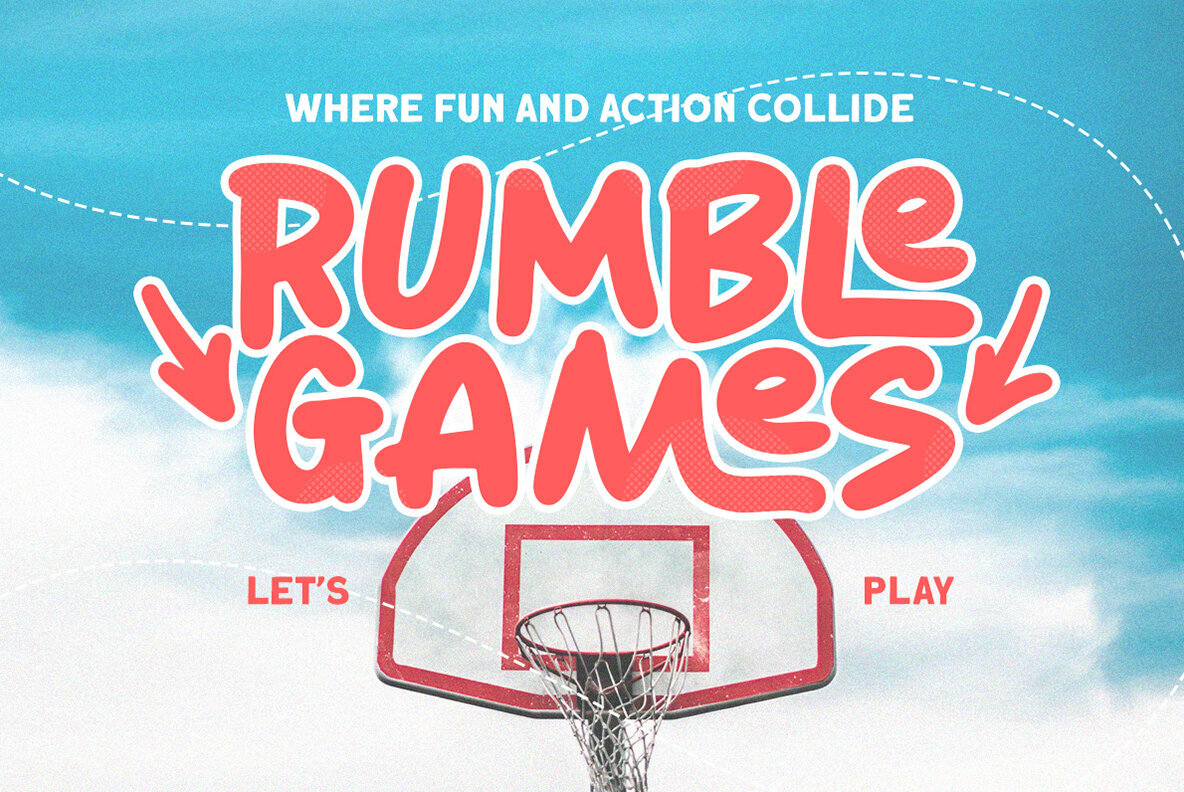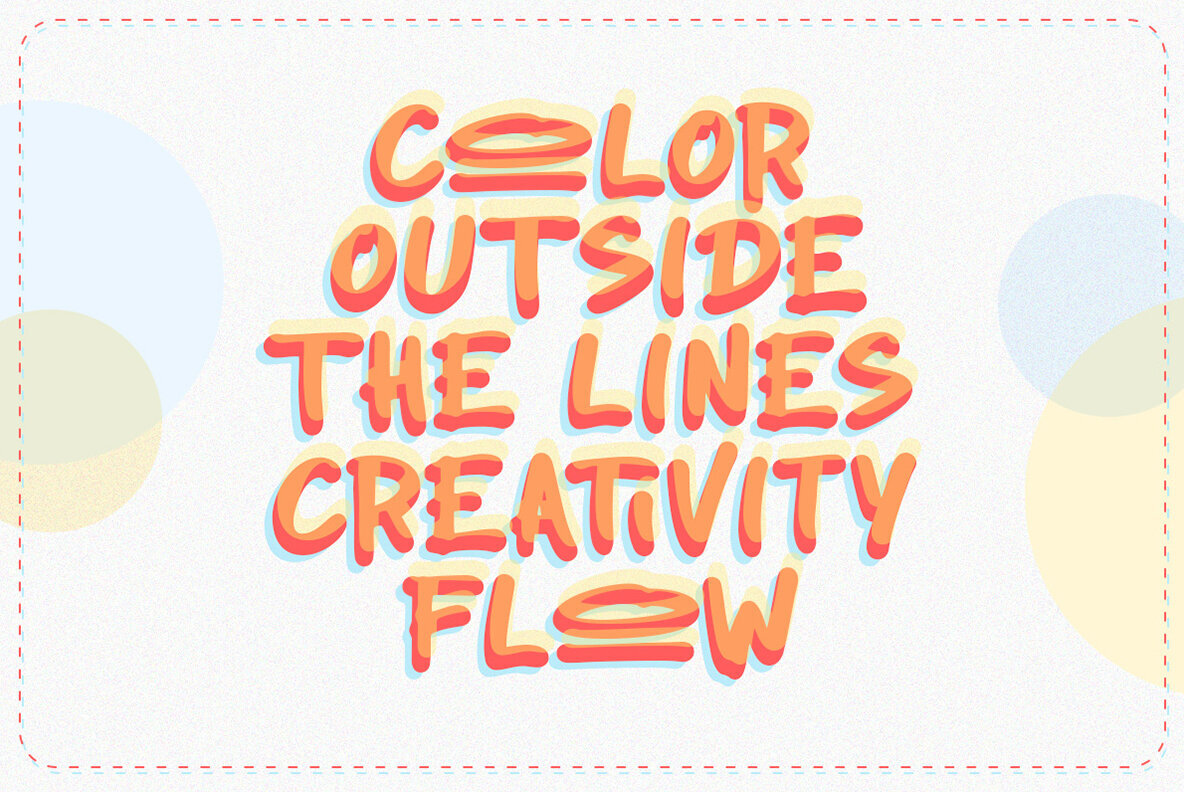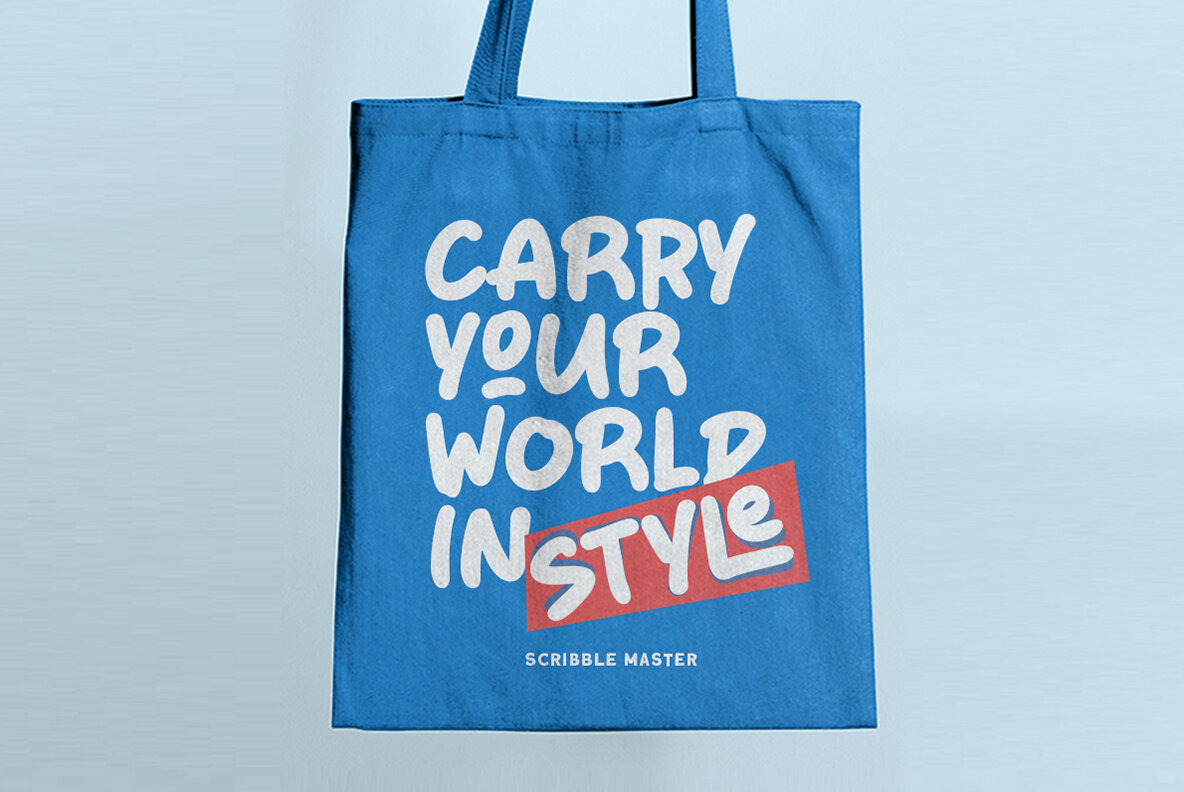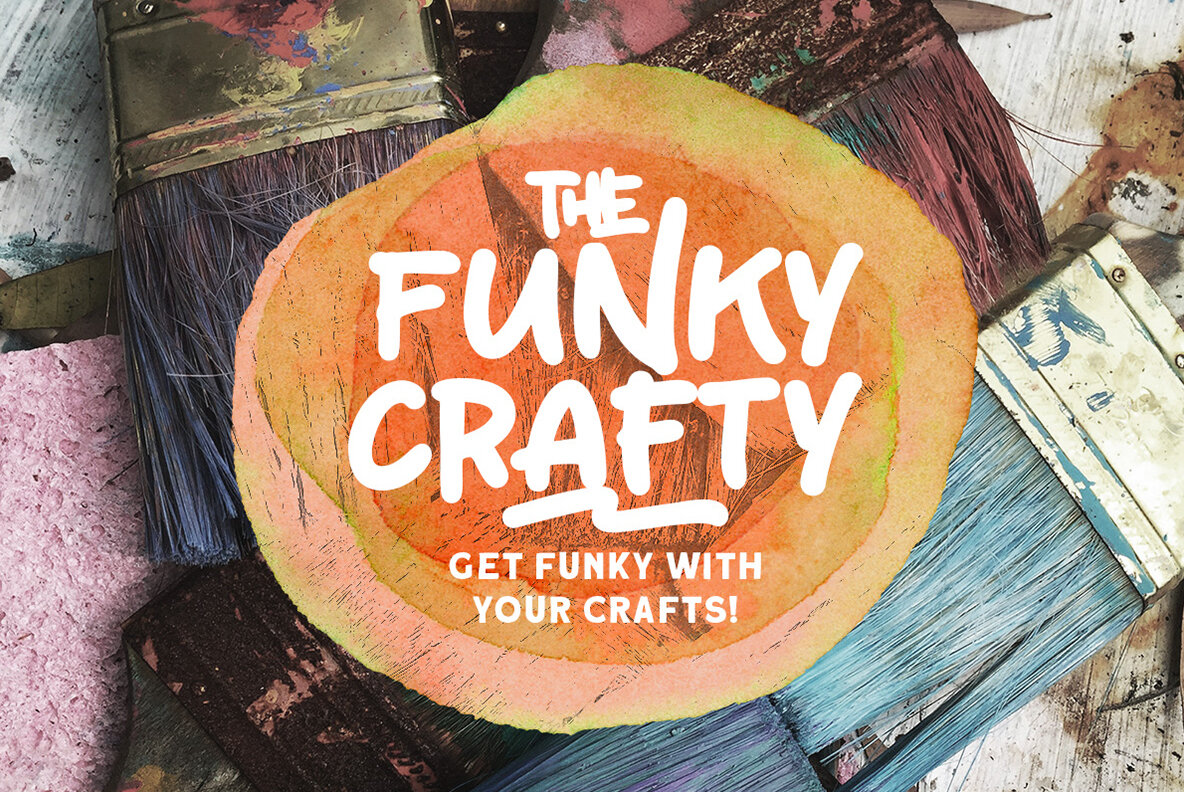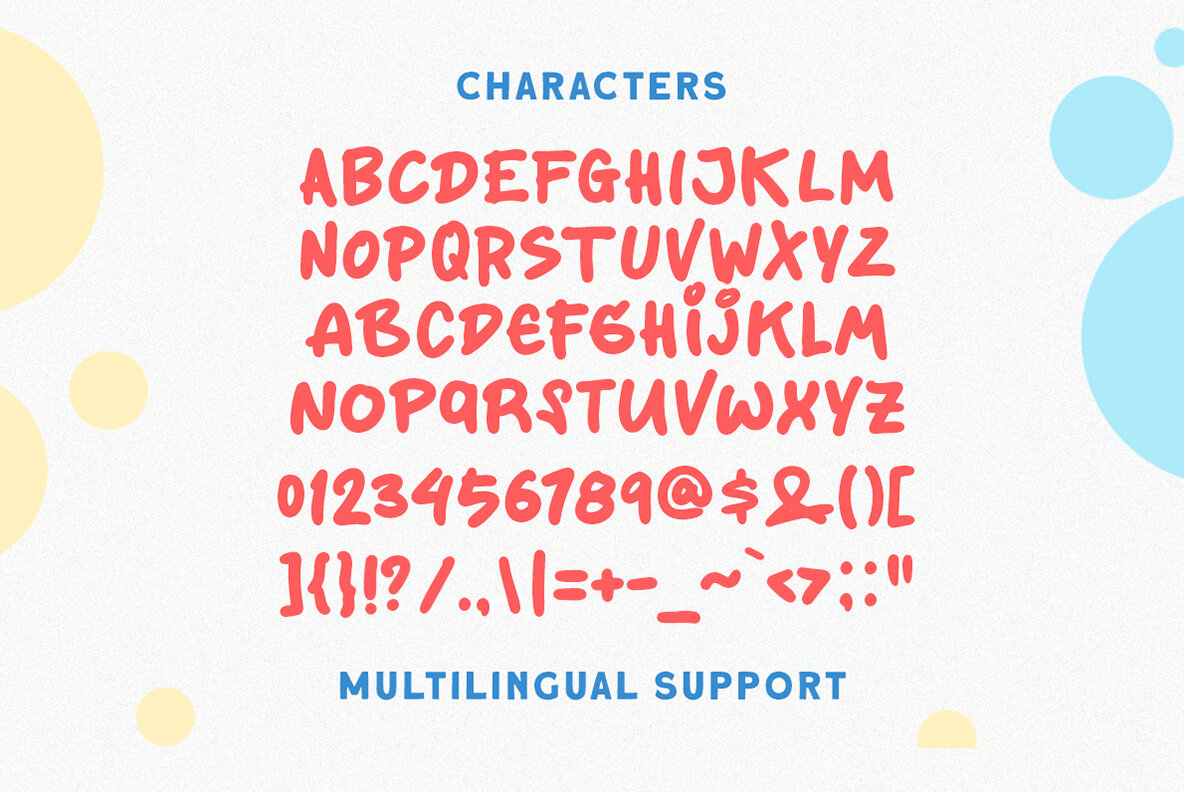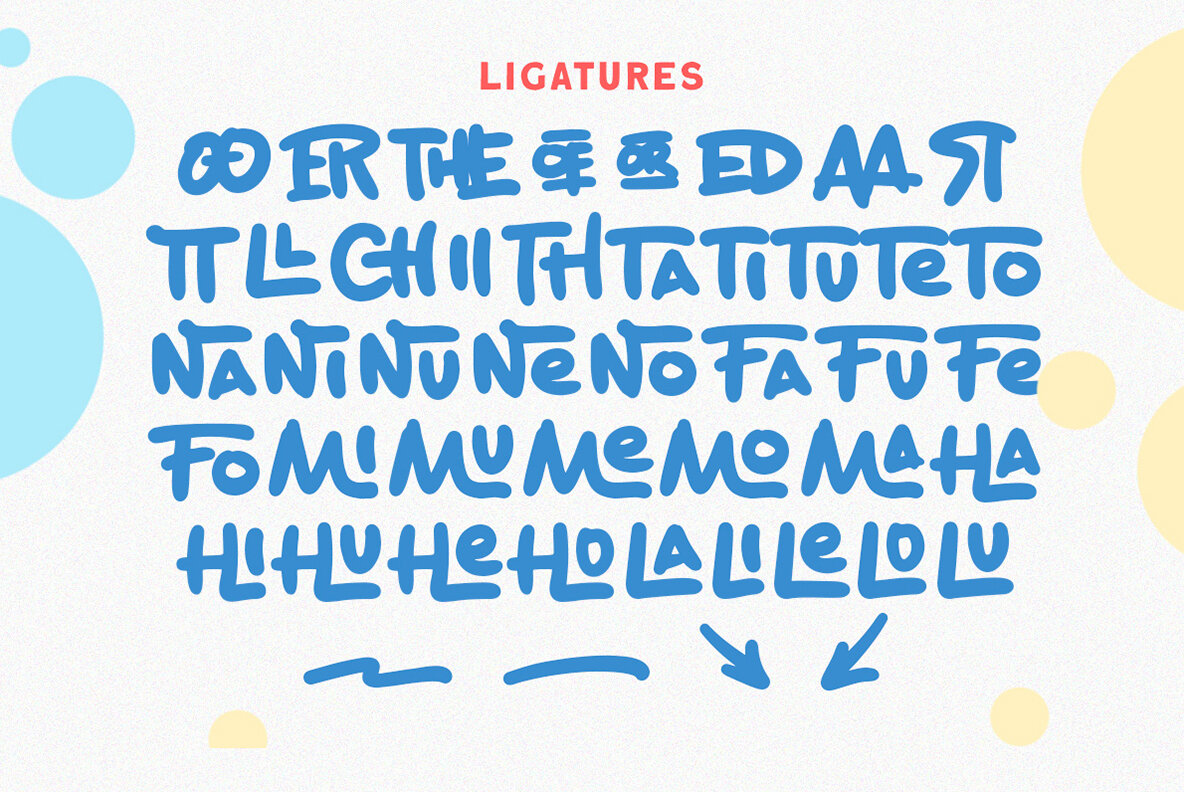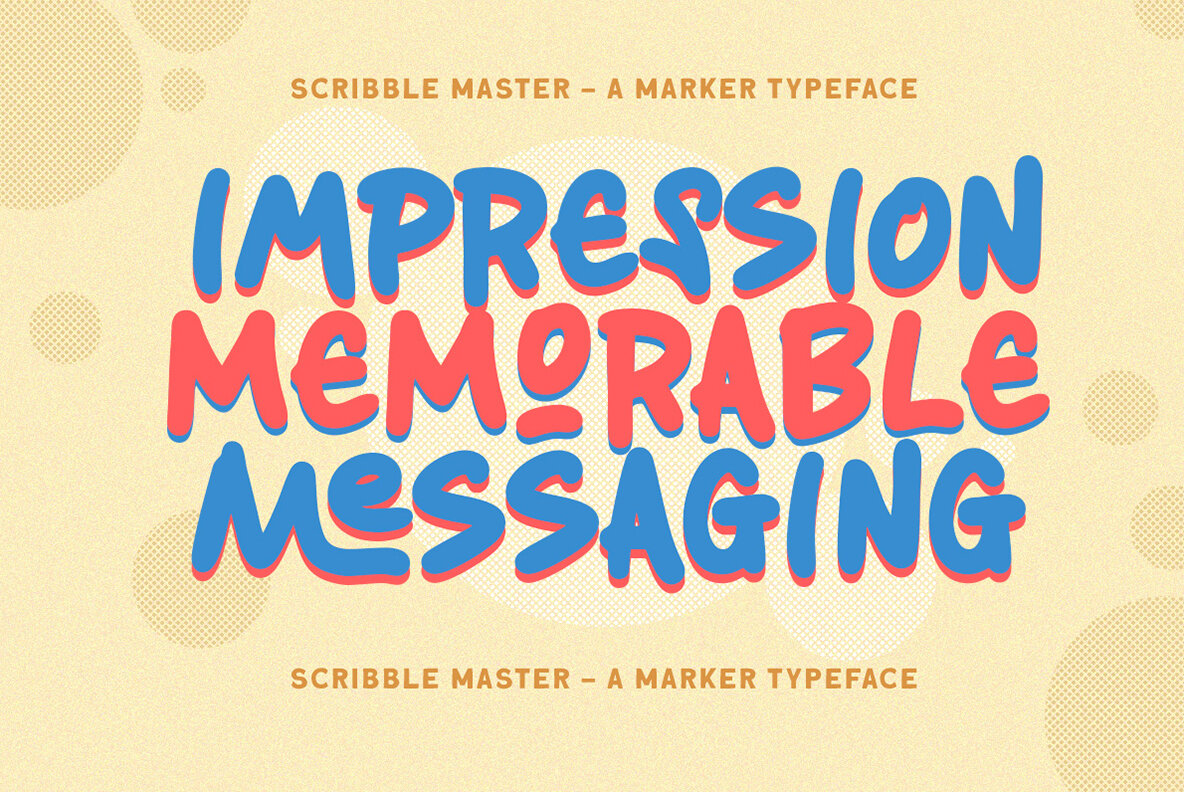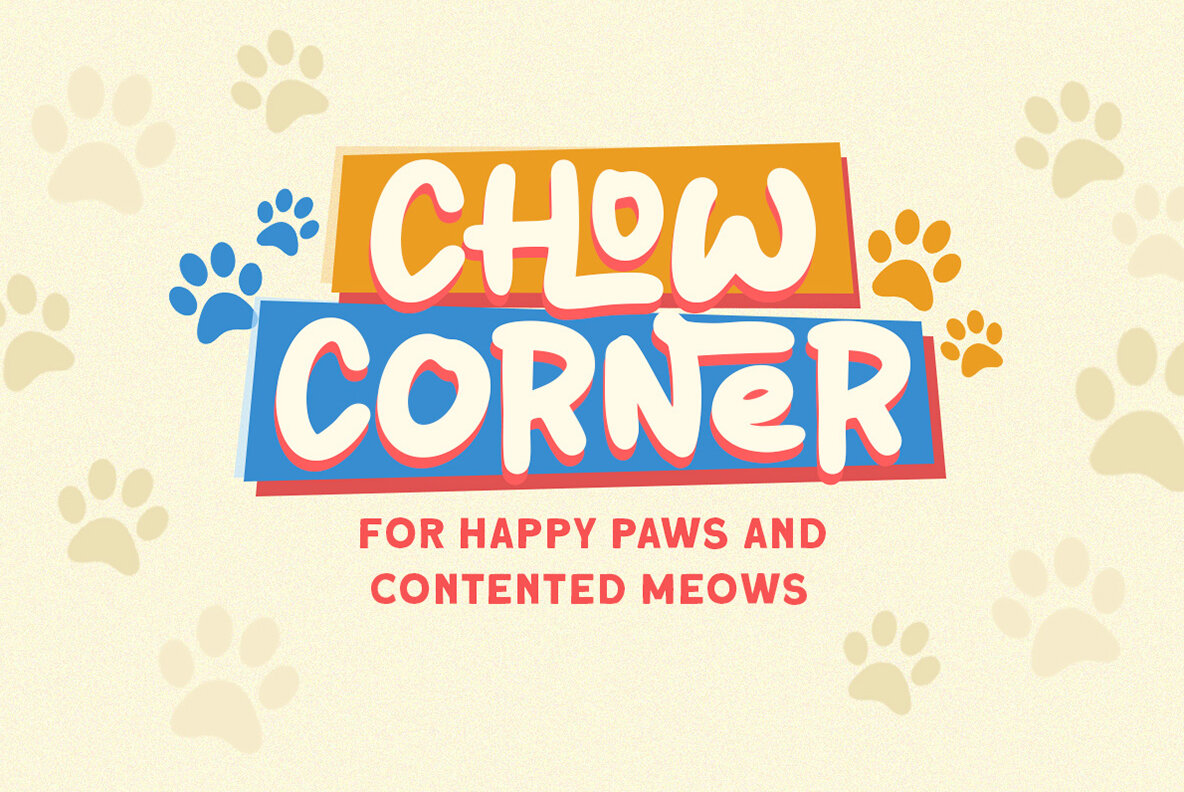
Scribble Wonders Font
Scribble Wonders Regular
This font boasts an exuberant, handcrafted feel reminiscent of brush strokes on a canvas. Its irregular, bold characteristics make it perfect for expressive titles or youthful branding, offering a contemporary yet playful touch. The font's casual imperfections and dynamic nature render it ideal for projects requiring a touch of artistic charm and energy.